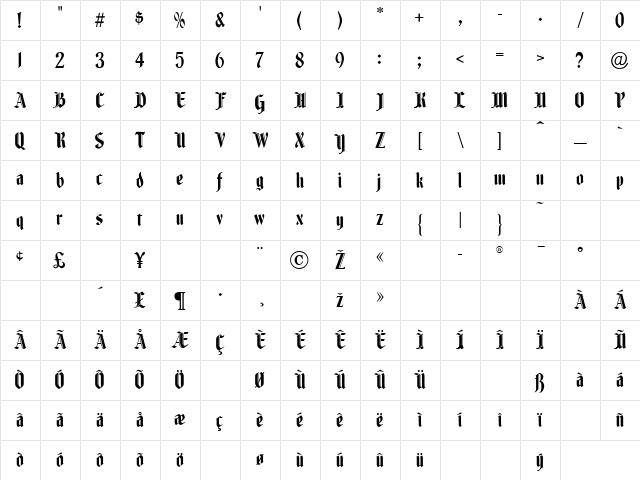
Fenwick Regular
Foundry: Digitized by Dan X. Solo. Software by Dover Publications, Inc
Fenwick Family
Fenwick Regular
Design Context for Fenwick
Fenwick is a composed and adaptable typeface that performs quietly and consistently across a wide range of design contexts.